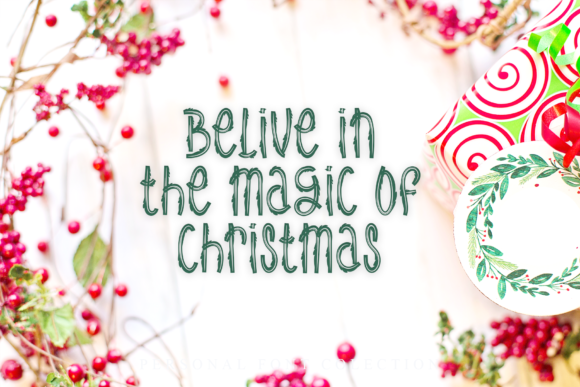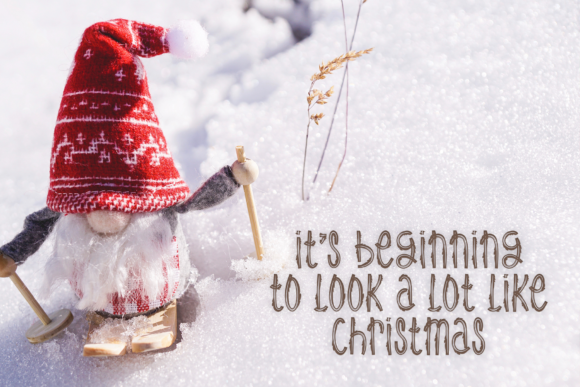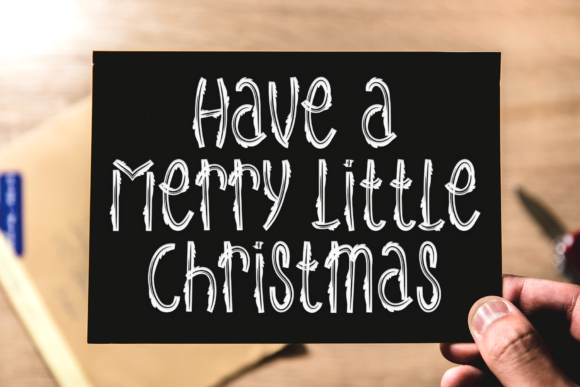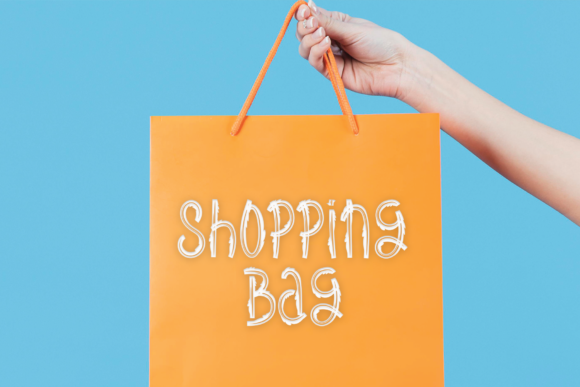
Introducing December Christmas Font: The Perfect Addition to Your Holiday Designs
Are you looking for a font that captures the essence of the holiday season? Do you want to add a touch of warmth and coziness to your designs? Look no further than the December Christmas Font! This natural and hipster display font is perfect for a variety of design projects, from formal to informal, and is sure to become a staple in your design collection.
What Makes December Christmas Font So Special?
December Christmas Font is a unique and stylish font that is perfect for adding a touch of holiday cheer to your designs. Its natural and hipster vibe makes it ideal for a variety of projects, including:
- Crafting: Whether you’re making handmade cards, gift tags, or decorations, December Christmas Font is the perfect choice.
- Digital designing: Add a touch of holiday magic to your social media graphics, blog posts, and website designs.
- Presentations: Make your holiday presentations stand out with this eye-catching font.
- Greeting cards making: Create beautiful and unique holiday cards with December Christmas Font.
Key Features of December Christmas Font
So, what makes December Christmas Font so special? Here are just a few of its key features:
- Natural and hipster vibe: December Christmas Font has a unique and stylish look that’s perfect for adding a touch of warmth and coziness to your designs.
- Display font: This font is perfect for headlines, titles, and other display text.
- Versatile: December Christmas Font is suitable for a variety of design projects, from formal to informal.
- Easy to read: Despite its decorative nature, December Christmas Font is easy to read and understand.
How to Use December Christmas Font in Your Designs
Using December Christmas Font in your designs is easy! Here are a few tips to get you started:
- Pair it with other fonts: December Christmas Font pairs well with a variety of other fonts, including serif and sans-serif fonts.
- Use it for headlines and titles: December Christmas Font is perfect for headlines and titles, but can also be used for body text.
- Add some texture: Add some texture to your designs by using December Christmas Font with a textured background or overlay.
- Experiment with colors: December Christmas Font looks great in a variety of colors, including traditional holiday colors like red and green.
Tips and Tricks for Getting the Most Out of December Christmas Font
Here are a few more tips and tricks for getting the most out of December Christmas Font:
- Use it for seasonal designs: December Christmas Font is perfect for holiday designs, but can also be used for other seasonal designs, like summer or autumn-themed projects.
- Mix and match: Experiment with different font sizes, colors, and styles to create a unique look.
- Add some graphics: Add some graphics, like holly or snowflakes, to your designs to make them more festive.
- Use it for branding: December Christmas Font can be used for branding, like creating a holiday-themed logo or social media graphics.
In conclusion, December Christmas Font is a natural and hipster display font that’s perfect for adding a touch of holiday cheer to your designs. Its versatility, readability, and unique style make it a great addition to any design collection. Whether you’re a designer, crafter, or DIY enthusiast, December Christmas Font is sure to become a favorite. So why wait? Download December Christmas Font today and start creating your own holiday designs!